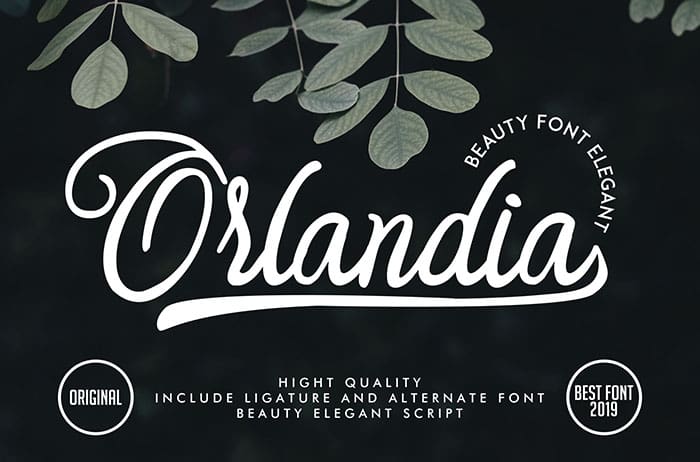
Free Orlandia is a delicate and stunning script font with a cool feel. It will add a bold feel to any creative project. Thanks to Vunira Studio for sharing this font! Take a look at this portfolio for more of his stunning fonts.
Designed By : Vunira Studio